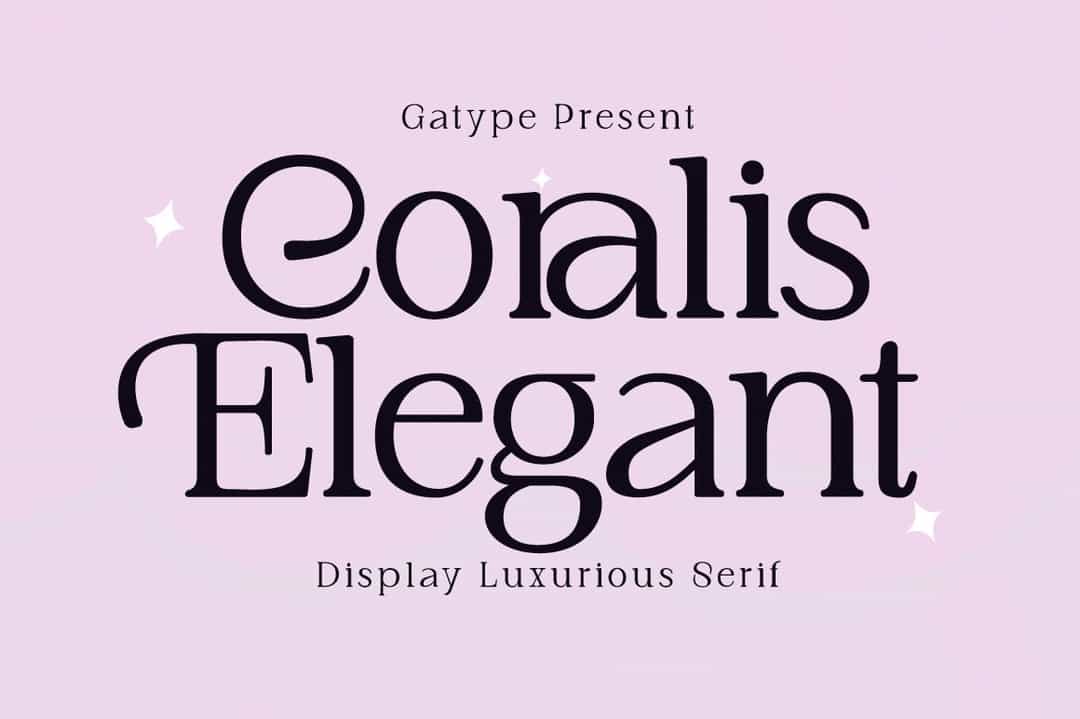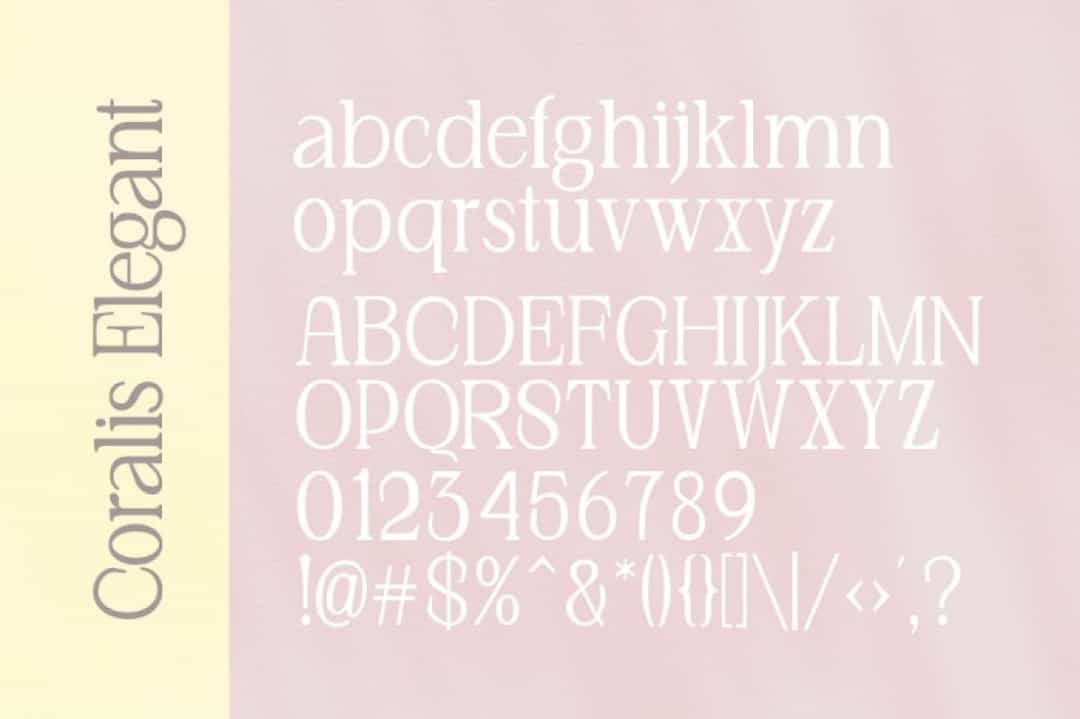
Coralis Elegant is an elegant serif typeface inspired by modern Display serifs. The font has thick, balanced strokes designed for elegance. In this example, I will demonstrate its use – perfect for branding, logotypes romance cards wedding invitations packaging retro labels namespelling among many other applications!